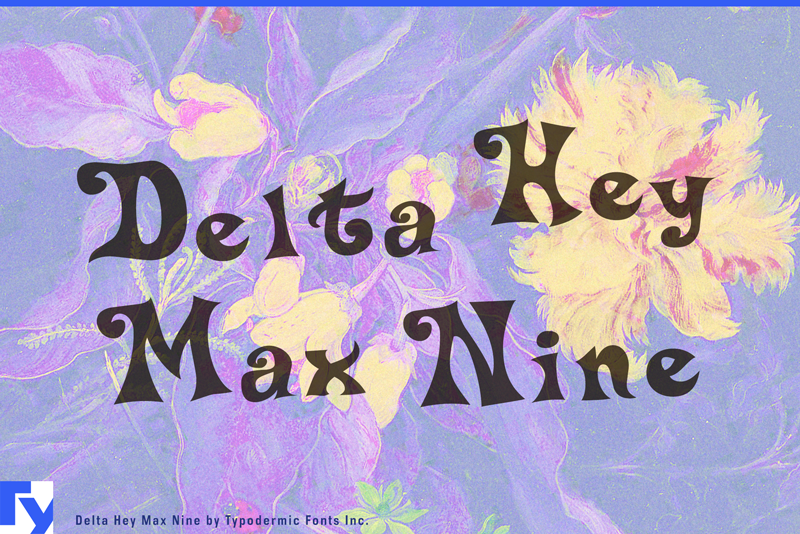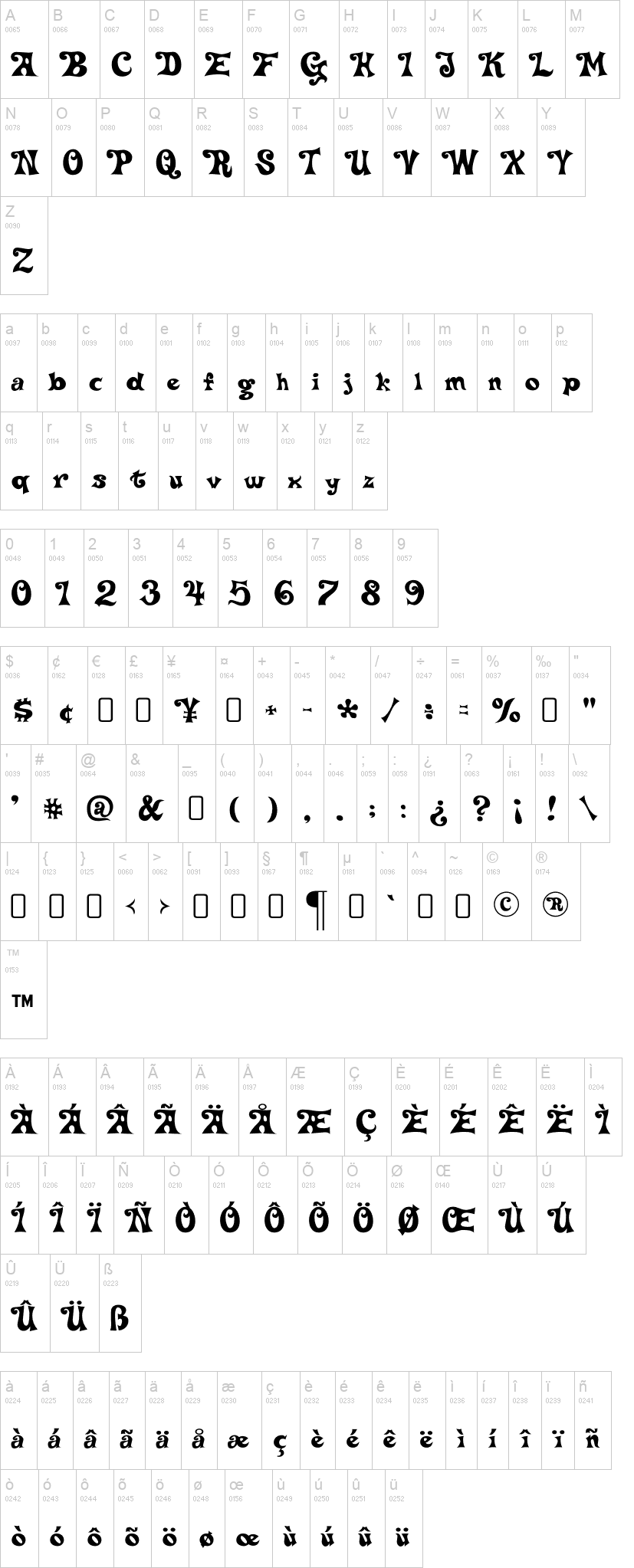
Note of the authorDelta Hey Max Nine is a wacky, retro curly display typeface. Its got a low-effort appearance thats ideal for communicating a lighthearted message. Some Latin-based European writing systems are supported, including the following languages. Afaan Oromo, Afar, Afrikaans, Albanian, Alsatian, Aymara, Basque, Bemba, Bikol, Breton, Cape Verdean, Creole, Catalan, Cebuano, Chamorro, Chavacano, Danish, Dawan, Dholuo, Dutch, English, Estonian, Faroese, Fijian, Filipino, Finnish, French, Frisian, Friulian, Galician, Genoese, German, Guadeloupean Creole, Haitian Creole, Hiligaynon, Icelandic, Ilocano, Indonesian, Irish, Italian, Jamaican, Kaqchikel, Kikongo, Kinyarwanda, Kirundi, Lombard, Low Saxon, Luxembourgish, Makhuwa, Malay, Ndebele, Neapolitan, Norwegian, Novial, Occitan, Papiamento, Piedmontese, Portuguese, Quechua, Rarotongan, Romansh, Sango, Saramaccan, Sardinian, Scottish Gaelic, Shona, Sicilian, Silesian, Slovak, Slovenian, Somali, Sotho, Spanish, Swahili, Swazi, Swedish, Tagalog, Tetum, Tshiluba, Tsonga, Tswana, Tumbuka, Uzbek (Latin), Venetian, Võro, Walloon, Waray-Waray, Wayuu, Xhosa, Yapese, Zapotec Zulu and Zuni.